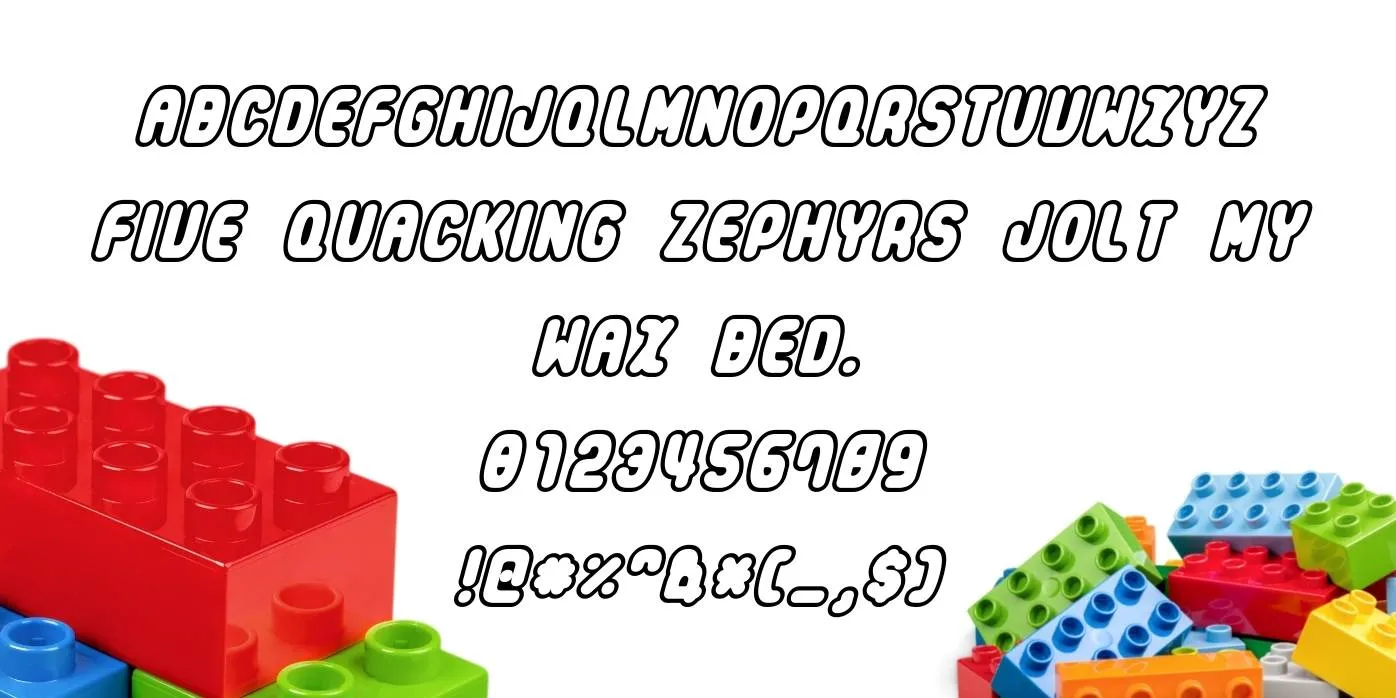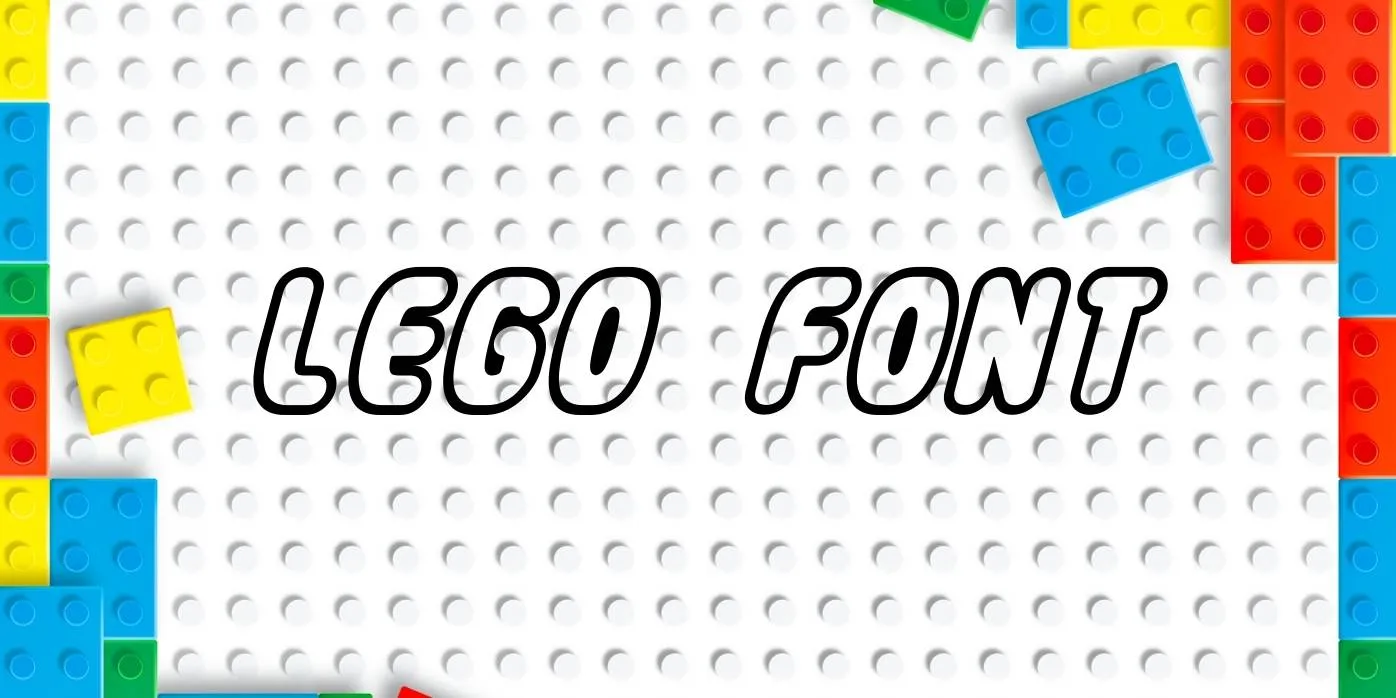
Lego Font
Here we introduce an awesome and stylish display typeface. Lego Font Family was designed by a designer Lego Brick. This typeface is best designing logos of the most famous and popular companies. Different companies use this font for their logos.
Different branded toy companies use this typeface for their projects. The most popular company known as Billand Toy earns great fame across the globe. Everyone’s attention goes to the logo of the company so this font is best for designing logos. This stylish and outstanding font is used for photographs designs.
This typeface comes in different glyphs and styles. This stunning font family gives you a real on-screen experience. This typeface gives a unique look and stylish touch to your all designs. If you want to design font posters you can use the Lego font generator of that typeface and makes logos freely.
By using this font family on the maximum domain you can make your font web-safe. You will get access to the capital letters because this font family has capital letters if your desire is to use this font in your other coming projects. Because of its outstanding facilities, you must use this typeface for making your results awesome and bold. This typeface is used in headlines of different newspapers.